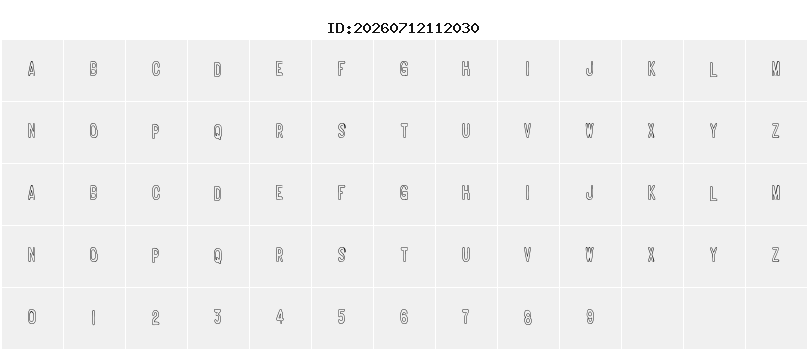
• Font Name: MakingIdeas
• Designer: Xerographer Fonts Max Infeld
• Description: Made at Xerographer Studios in Portland,OR
MakingIdeas.ttf is a modern, elegant sans-serif font designed for ultimate readability and visual harmony. Perfect for branding, headlines, web design, and print materials.